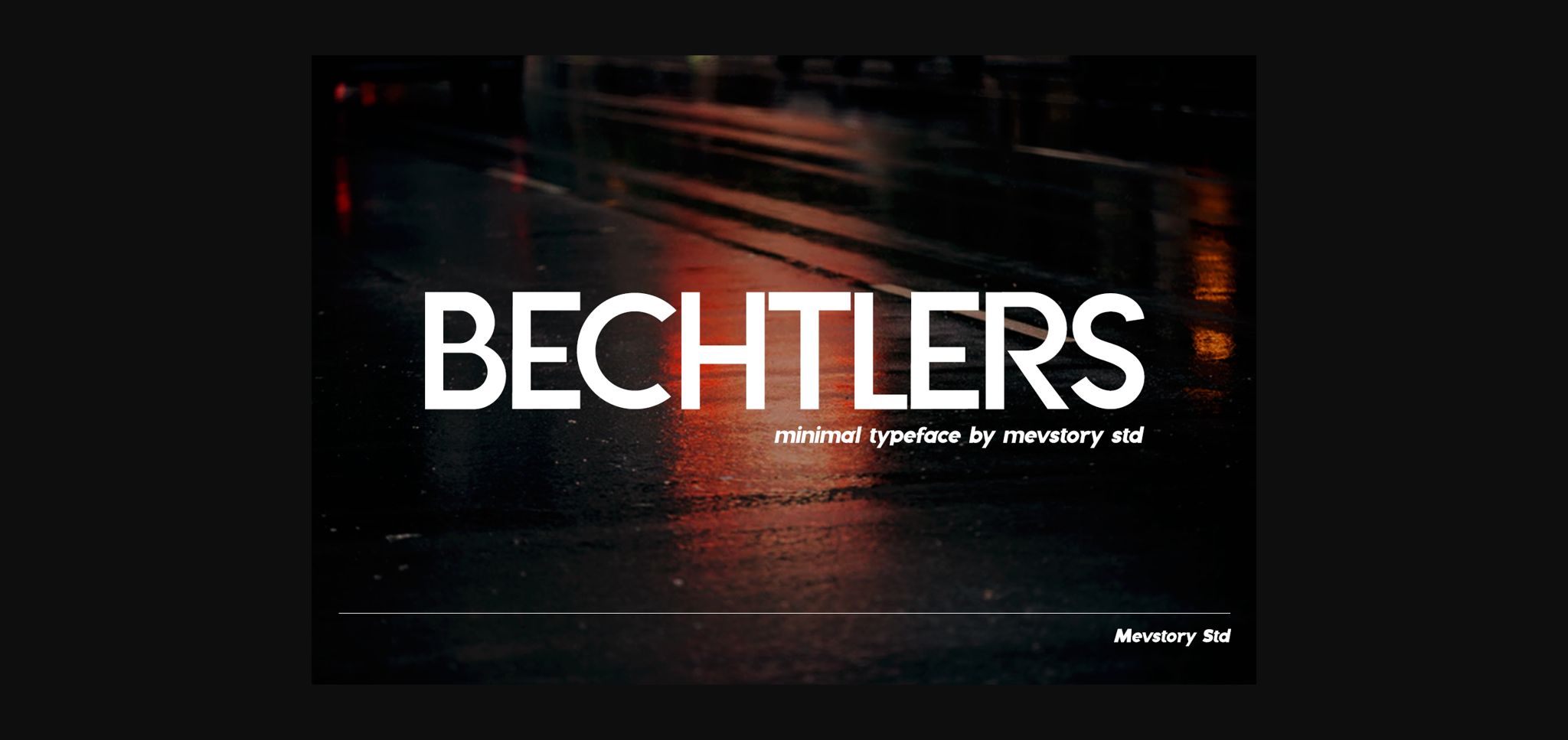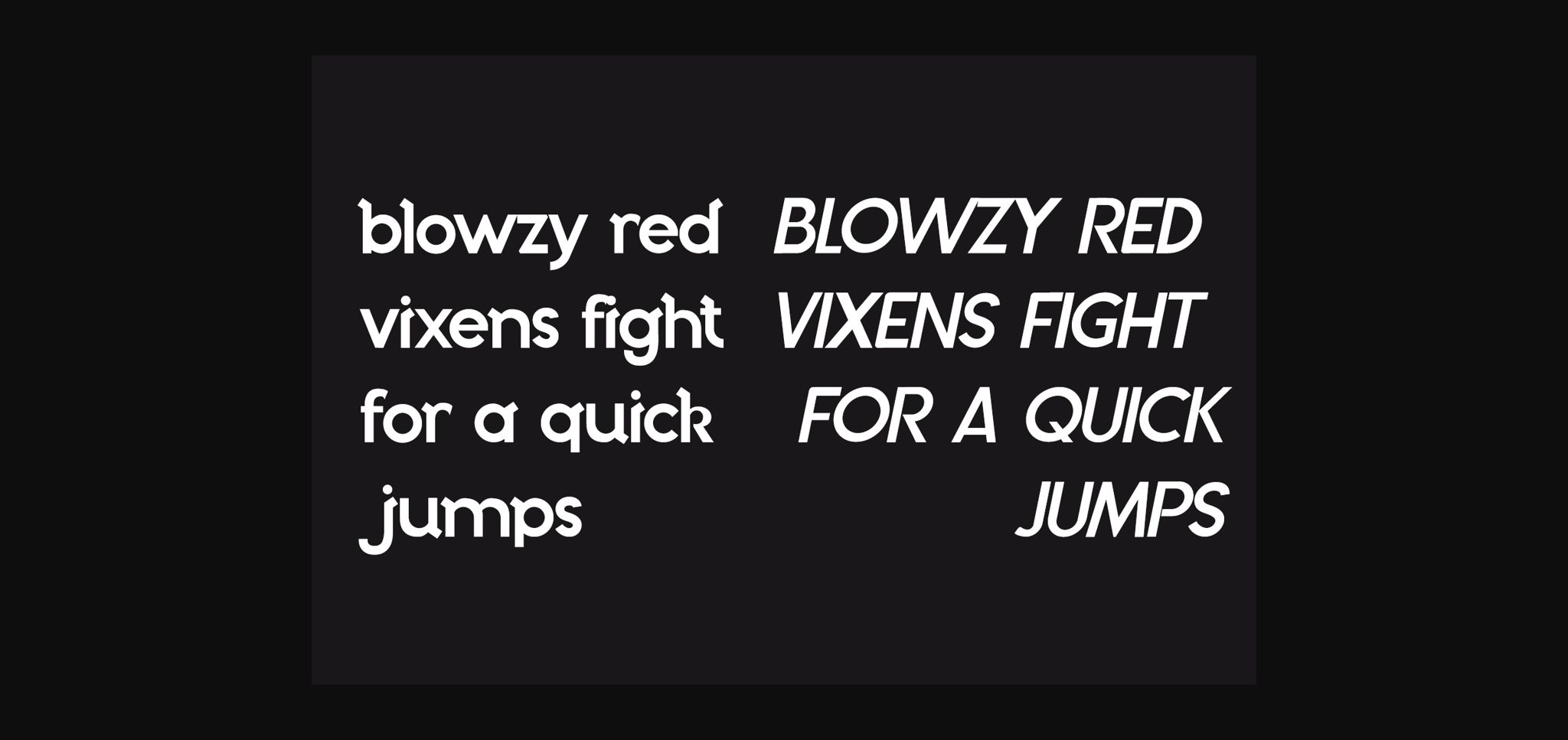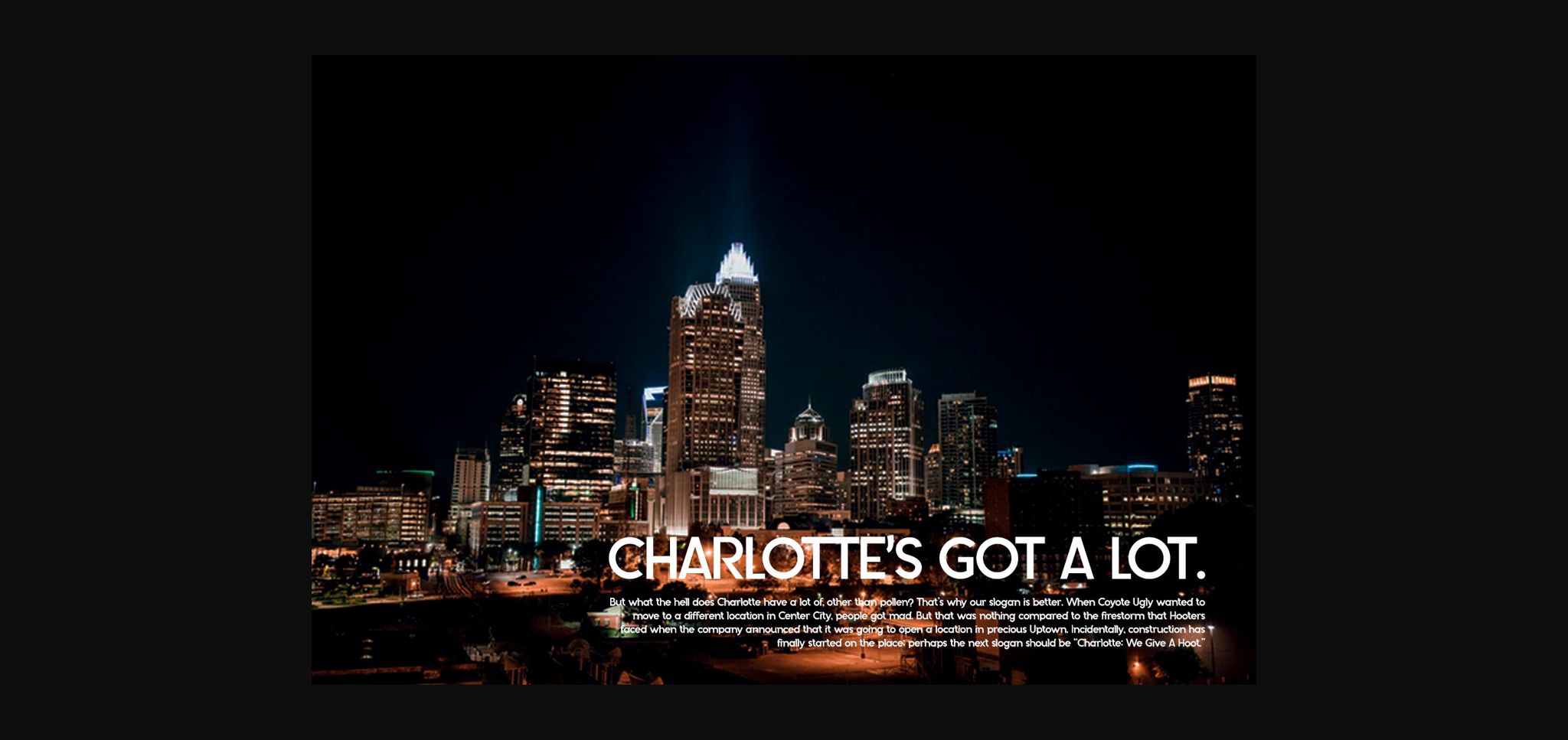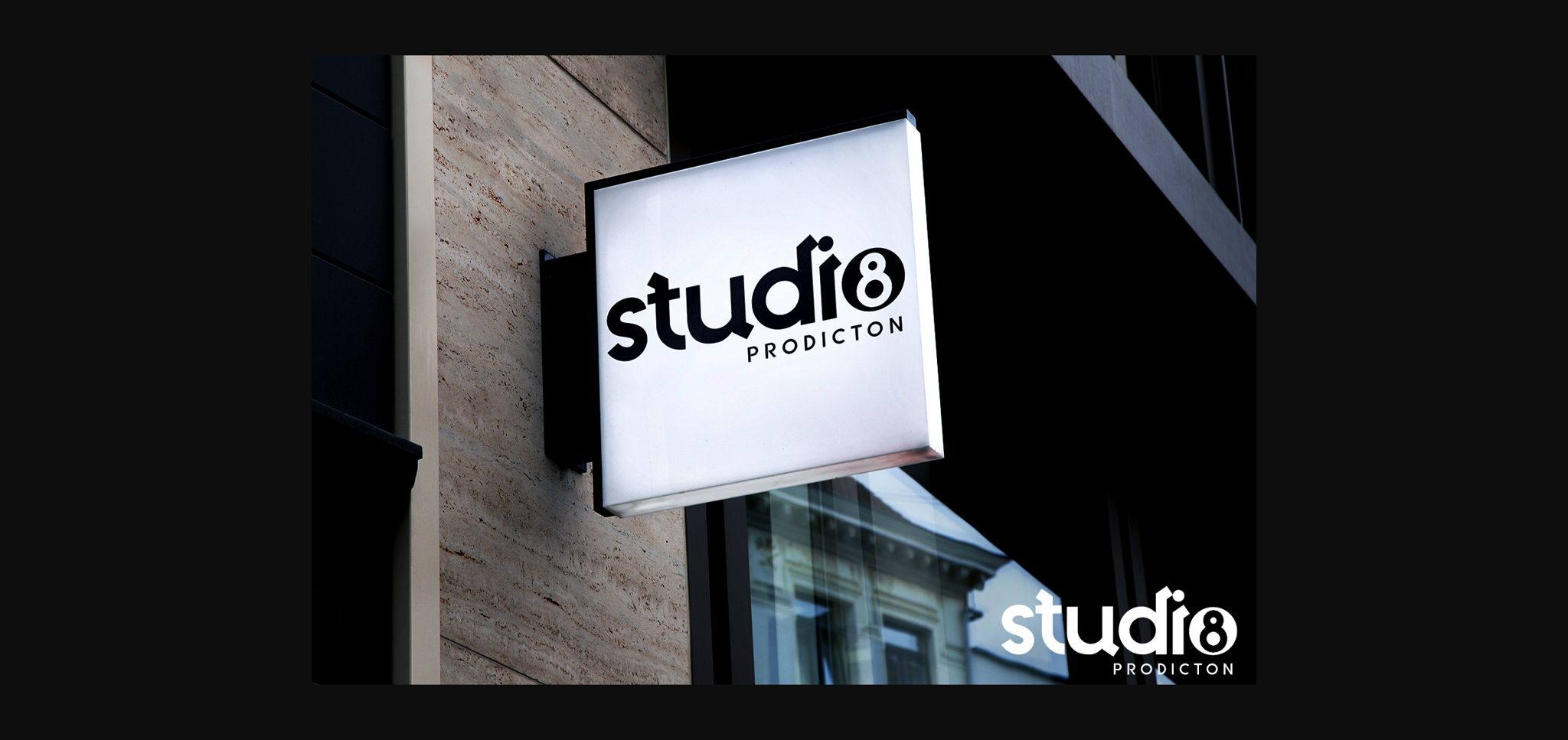
Bechtlers Font
About Bechtlers Font
Bechtlers is a great sans serif font. It features an incredibly classic style, while still keeping a friendly feel. Bechtlers is the perfect font for making original and outstanding designs.